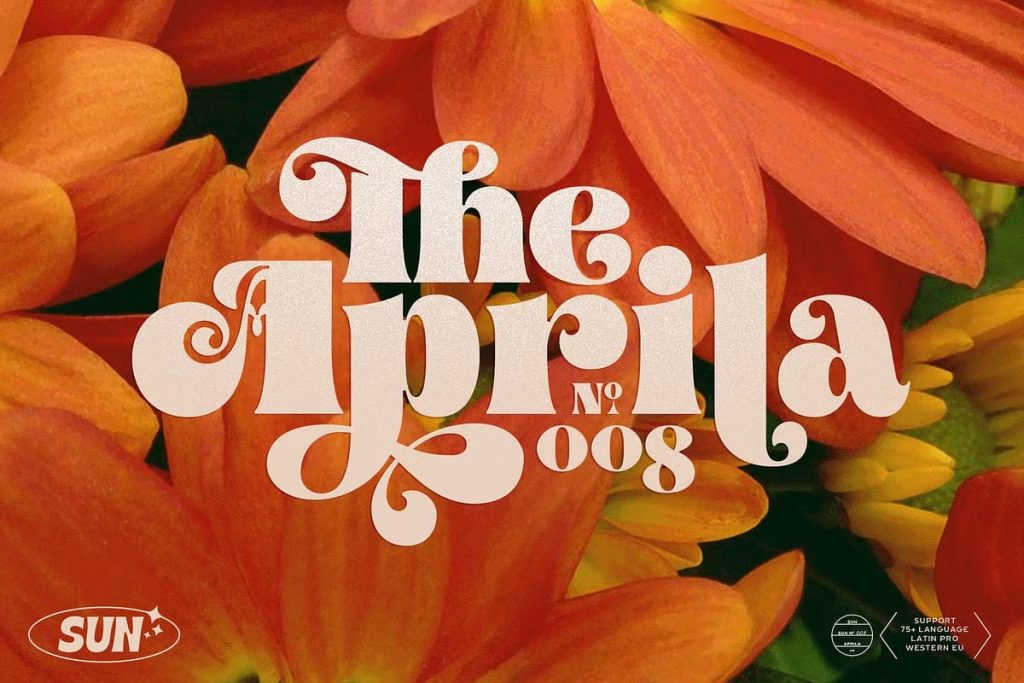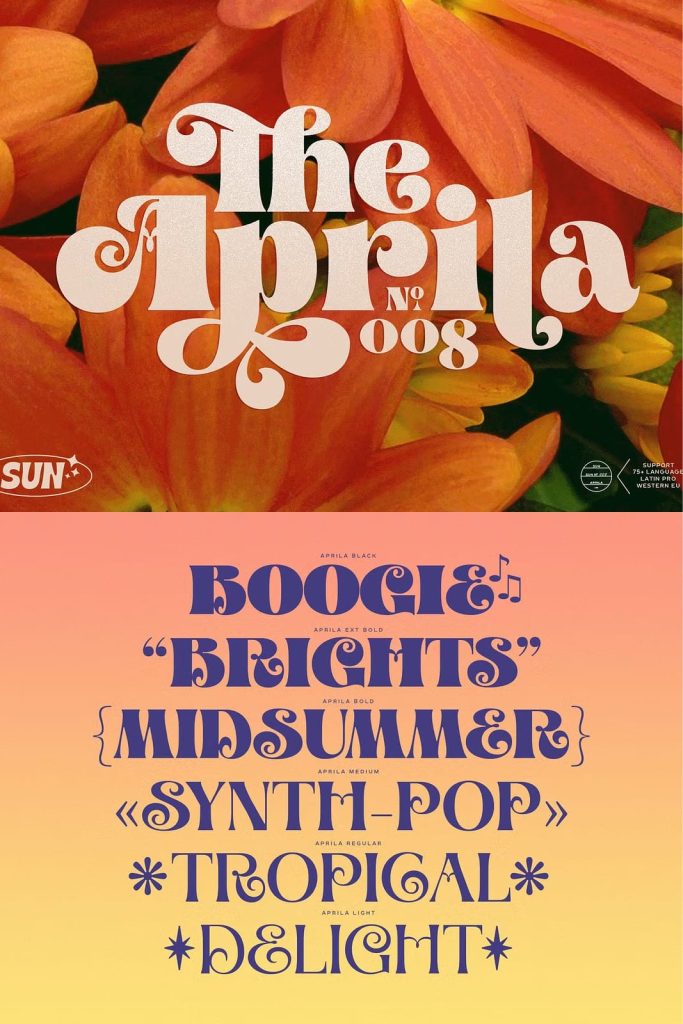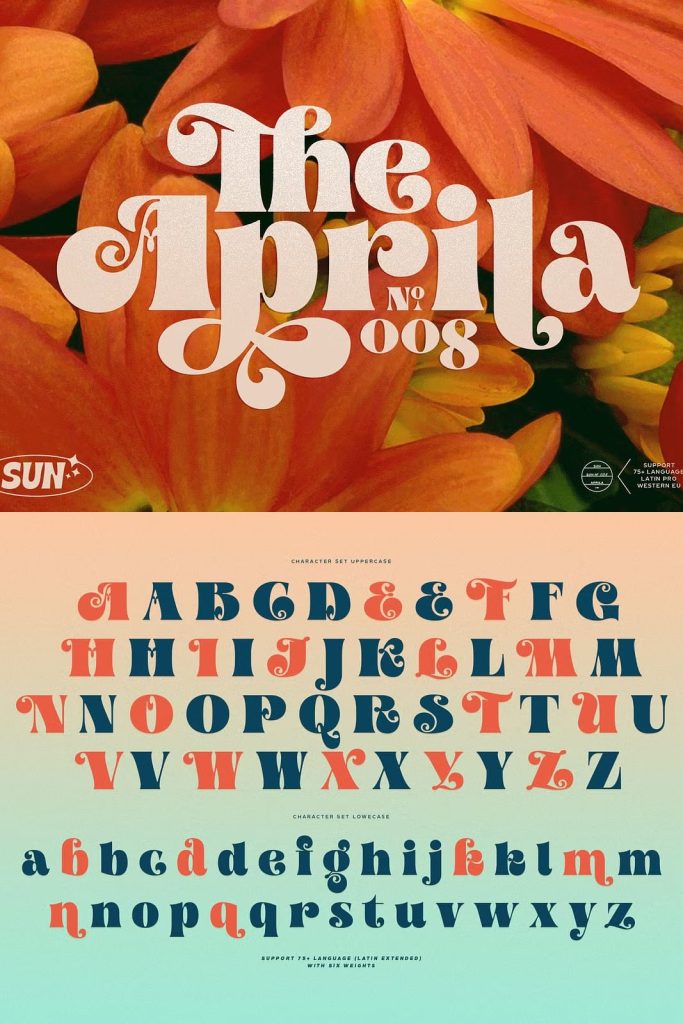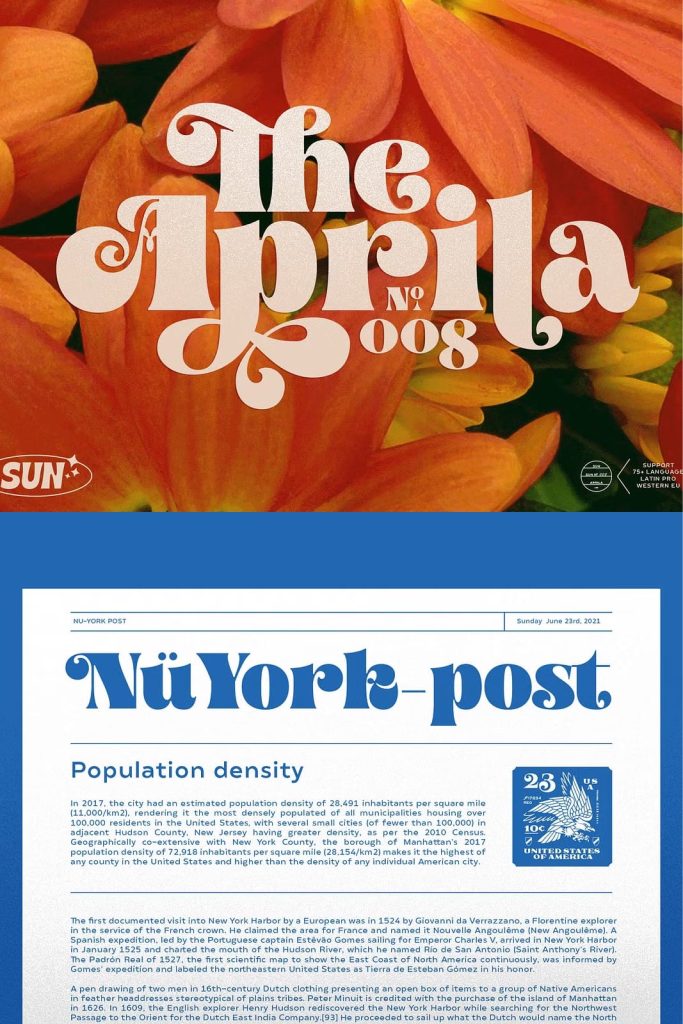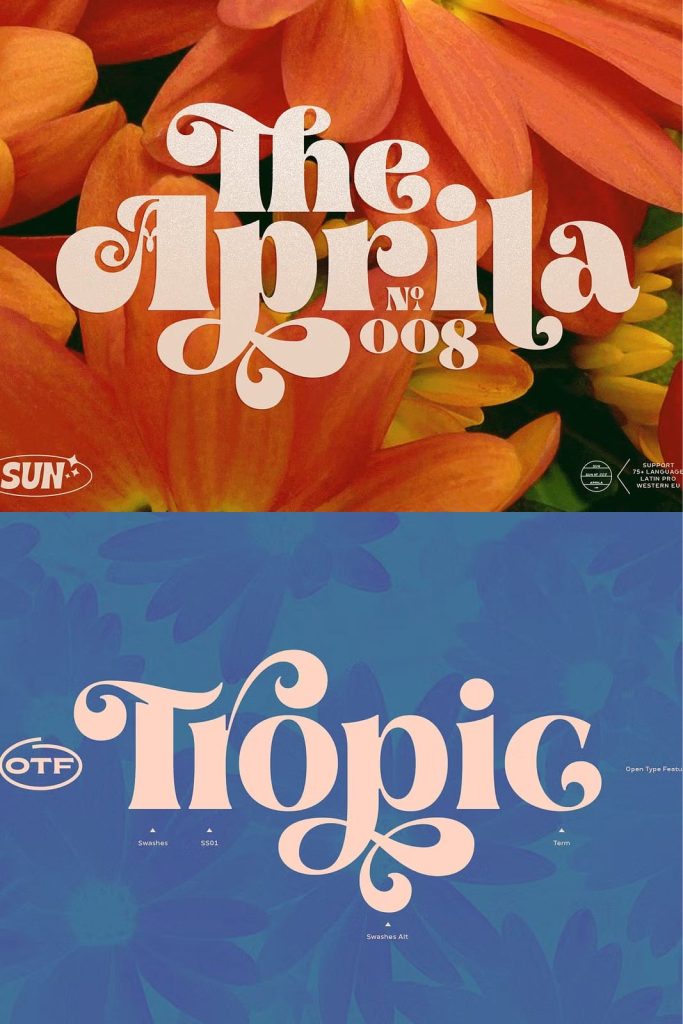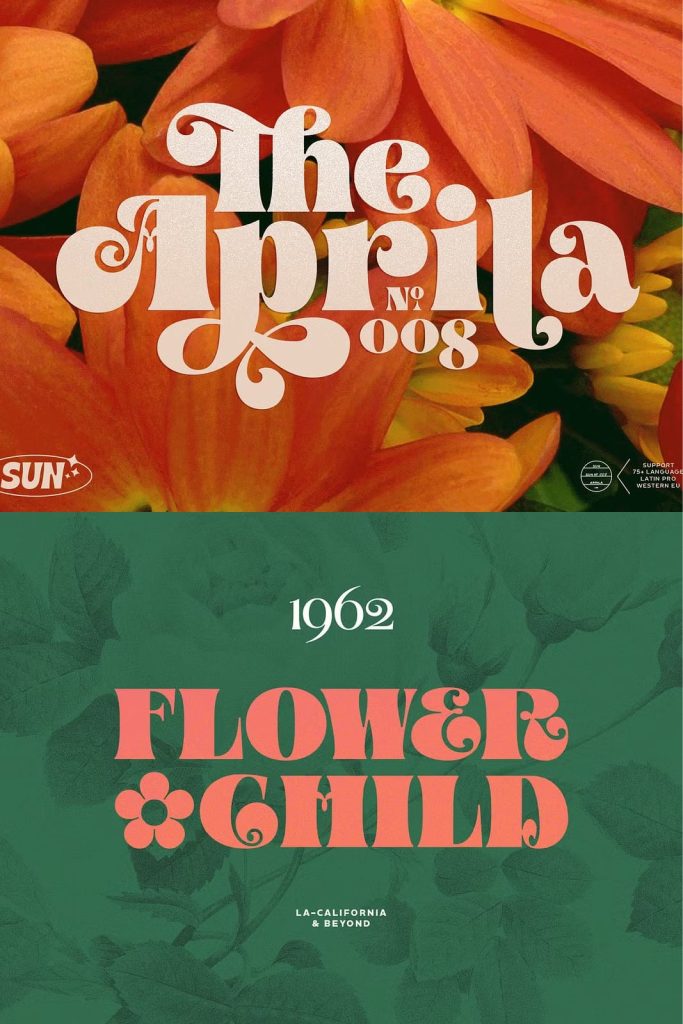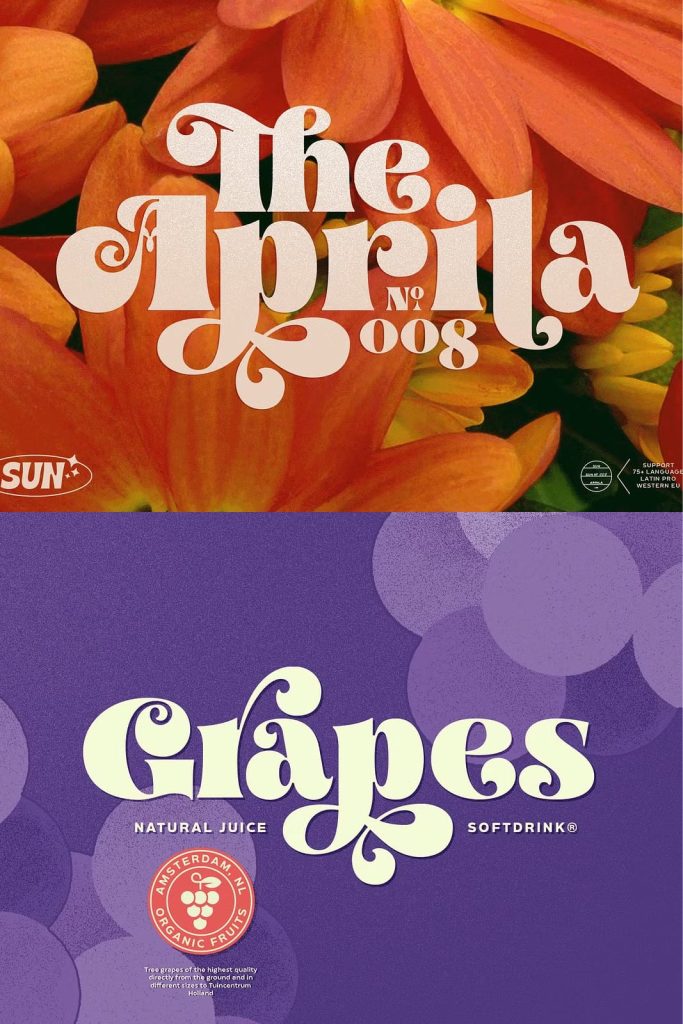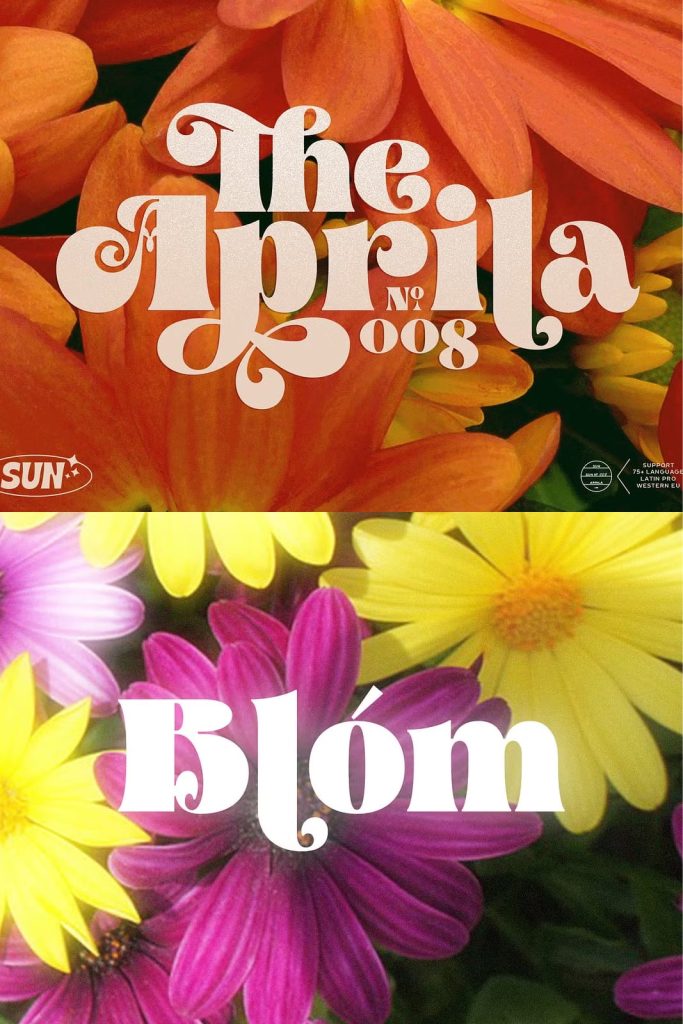
Aprila font inspired by the 1960s Hippies Movement, the psychedelic way of creating their imaginary visions. more colorful, bright and extremely difficult to interpret. available in 6 weights and support 75+ language (Latin Extended)